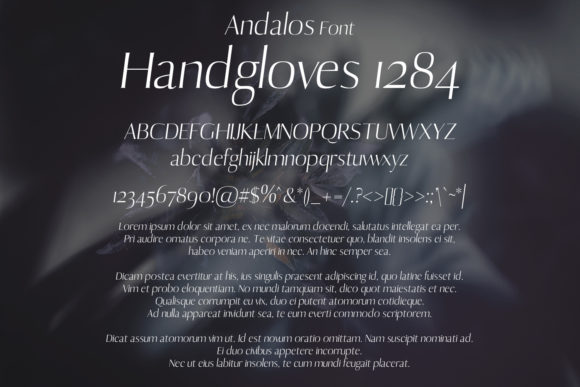
Introducing Andalos Font: The Epitome of Elegance and Sophistication
In the realm of typography, few fonts manage to strike a balance between modernity and classic elegance. Andalos Font, a modern, thin, and delicate serif font, is one such typographic marvel that has been making waves in the design community. Its original look is not only visually appealing but also versatile, making it an ideal choice for a wide range of crafty ideas, from letterheads and titles to stationery.
The Characteristics of Andalos Font
Andalos Font is distinguished by its slender lines and delicate serifs, which lend it an air of sophistication and refinement. This font is the perfect embodiment of modern elegance, making it suitable for designers and crafters looking to add a touch of class to their projects. Whether you’re working on a luxury brand’s letterhead, a wedding invitation, or a high-end product label, Andalos Font is sure to make a lasting impression.
One of the standout features of Andalos Font is its versatility. Its unique yet classic design makes it adaptable to various design needs. Here are a few ways you can utilize Andalos Font in your projects:
- Letterheads and Business Cards: Add a professional yet elegant touch to your corporate communications.
- Titles and Headings: Elevate your blog posts, articles, and website content with stylish headings.
- Stationery: From wedding invitations to thank you cards, Andalos Font brings a level of sophistication that’s hard to match.
- Product Labels: For luxury goods, high-end electronics, or gourmet food products, this font can add an air of exclusivity.
Why Choose Andalos Font?
Choosing Andalos Font for your design projects comes with several benefits:
- Uniqueness: Stand out from the crowd with a font that is both modern and distinctive.
- Elegance: Impress your audience with the refined and sophisticated look that Andalos Font offers.
- Readability: Despite its delicate nature, Andalos Font maintains high readability, making it suitable for both headings and body text.
- Flexibility: Use it across various platforms and mediums, from digital interfaces to print materials.
Tips for Using Andalos Font Effectively
To make the most out of Andalos Font, consider the following tips:
- Pair it with Other Fonts: Combine Andalos Font with a sans-serif font for body text to create visual interest and hierarchy.
- Adjust Line Spacing: For body text, ensure adequate line spacing to enhance readability.
- Use it for Headings: Reserve Andalos Font for headings and titles where you want to make a statement.
- Consider the Color: Stick to simple, elegant color schemes that complement the font’s sophistication.
Andalos Font is a game-changer for designers and crafters looking to infuse their projects with a touch of modern elegance and sophistication. Its delicate serifs, slender lines, and versatile nature make it an excellent choice for a myriad of design applications. Whether you’re aiming to create a lasting impression with a luxury brand or simply want to add a classy touch to your stationery, Andalos Font is sure to exceed your expectations. With its unique blend of modernity and classic elegance, Andalos Font is poised to become a staple in the world of typography.